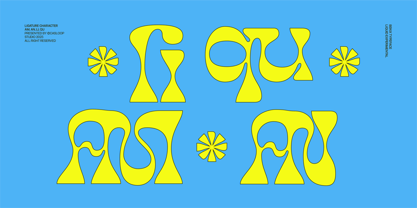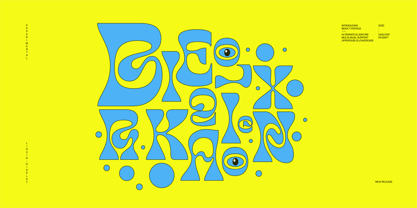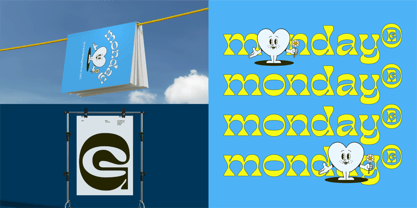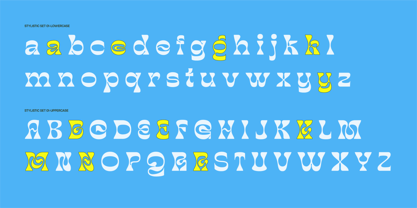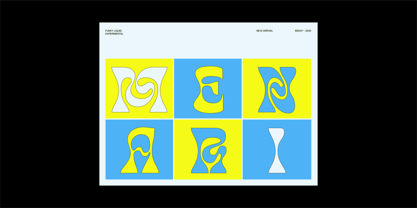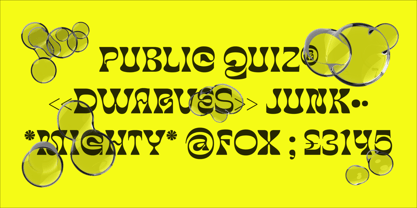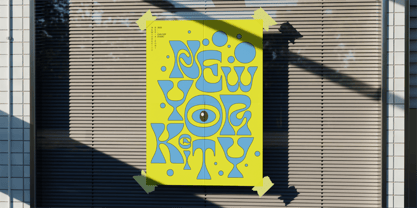
Bekix
Die Schriftfamilie Bekix wurde von Wantara Putra entworfen und von Casloop Studio veröffentlicht. Bekix enthält 1 Stile.
Bekix Typeface — The Funky, Liquid-Inspired Display Font Bekix is a bold and experimental display typeface designed for creatives who dare to be different. Perfect for eye-catching branding, playful posters, and vibrant social media content, Bekix exudes personality with its retro-inspired, liquid-like letterforms. This typeface effortlessly balances funky energy with contemporary charm, making it a must-have for bold design projects.
Features of Bekix Typeface
• Playful Alternates and Ligatures: With stylistic alternates and custom ligatures, Bekix gives you the creative flexibility to make your designs truly unique.
• Retro Meets Modern: Inspired by vintage aesthetics but with a contemporary edge, Bekix is perfect for projects that need a bold, trendy vibe.
• Multilingual Support: Bekix supports a wide range of languages, including accented characters, making it suitable for global audiences.
• Attention-Grabbing Shapes: Its bold, wavy letterforms make Bekix the perfect choice for high-impact headlines and artistic designs.
Bekix is all about making your work stand out. Whether it’s bold headlines, fun posters, or branding that grabs attention, this retro-inspired, funky, liquid display font brings bold energy to your creative projects. Designed for anything but ordinary, Bekix adds personality and flair to every design. From posters and event branding to social media graphics and editorial layouts, Bekix thrives in projects that need to make a statement. Its playful curves and experimental shapes make it perfect for music festival visuals, logo design, or even merchandise and packaging.